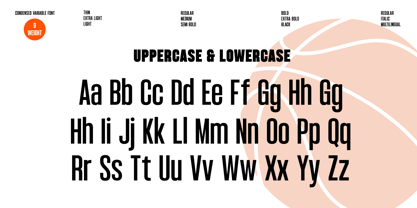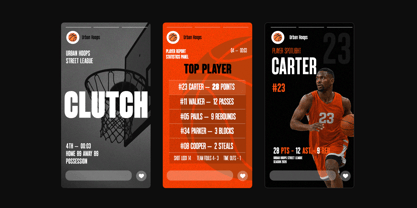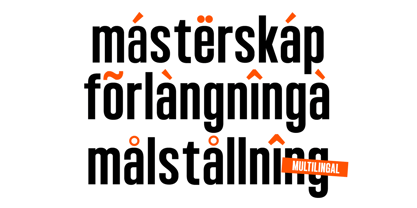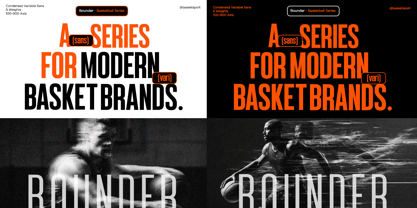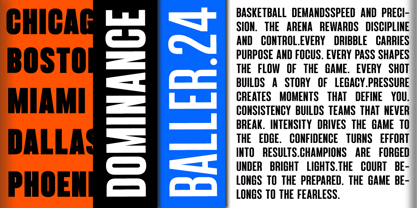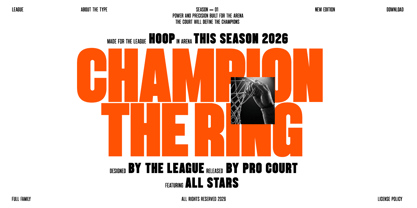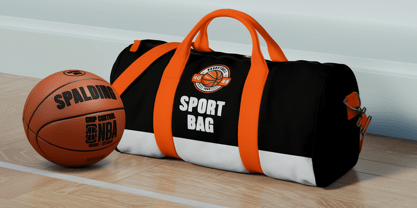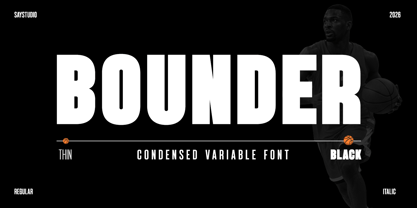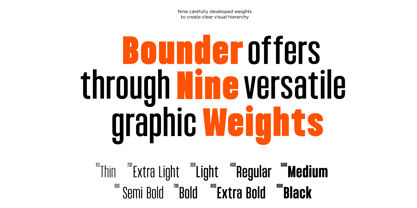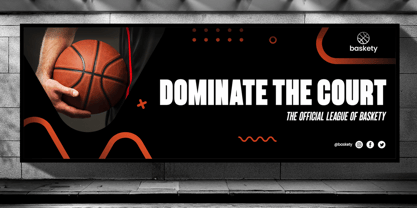
Bounder
by Say Studio
The Bounder Font Family was designed by Mussyayin and published by Say Studio. Bounder contains 18 styles and family package options. More about this family
Bounder is a powerful condensed variable sans serif font designed for bold visual impact, speed, and modern athletic energy. With its tight proportions, strong vertical rhythm, and clean geometric balance, Bounder commands attention and delivers a striking presence. The condensed structure enables designers to convey more information in limited space while ensuring outstanding readability and visual punch. Engineered as a variable font, Bounder features a wide weight range from Thin to Black, providing extreme flexibility for various applications including branding systems, sports identities, editorial layouts, motion graphics, advertising, and digital media. Whether utilized for headlines, posters, apparel graphics, social media visuals, web banners, UI displays, packaging, or promotional campaigns, this font adapts effortlessly to dynamic design demands, offering sharp clarity and striking contrast. Ideal for sports branding, esports teams, streetwear labels, fitness brands, event promotions, technology startups, and bold corporate identities, Bounder empowers designers to create energetic, high-impact typography that exudes modernity, confidence, and competitiveness. Its condensed proportions and strong character make it perfect for projects that require speed, power, and visual authority. Thank You, Have a Good Day! Saystudio
Designers: Mussyayin
Foundry: Say Studio